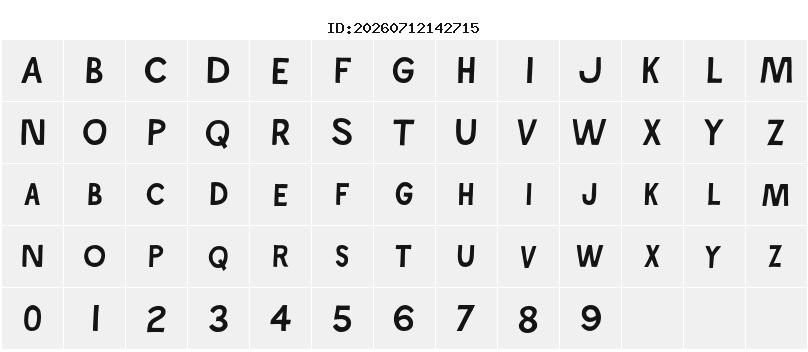
About Ray Johnson.otf
Ray Johnson.otf is a modern, elegant sans-serif font designed for ultimate readability and visual harmony. Perfect for branding, headlines, web design, and print materials.